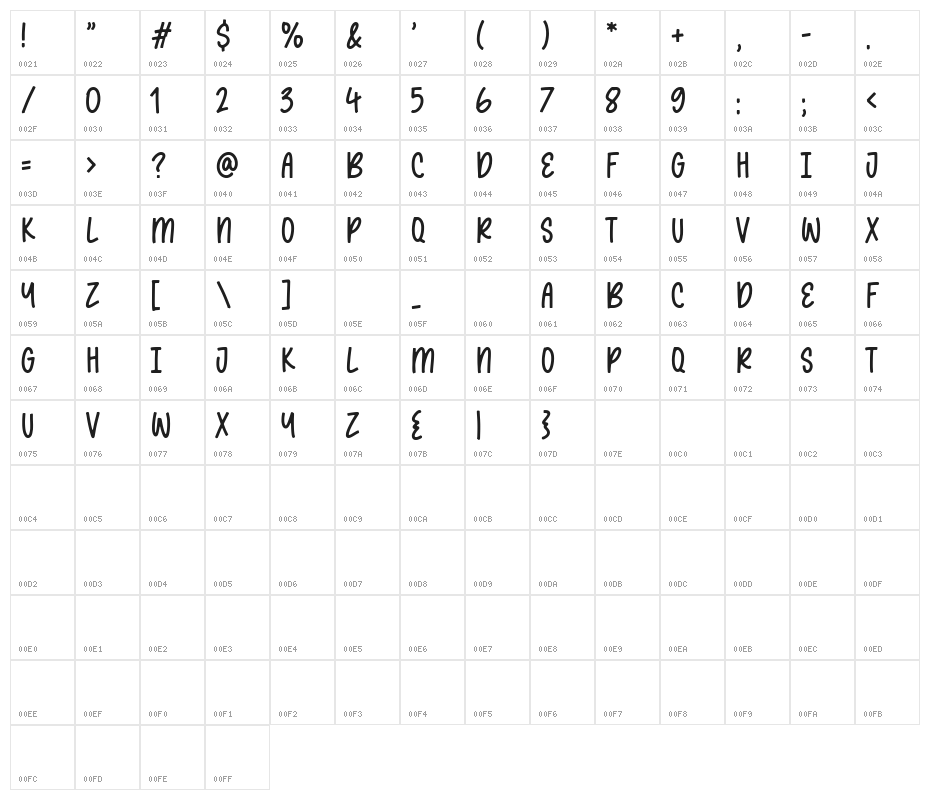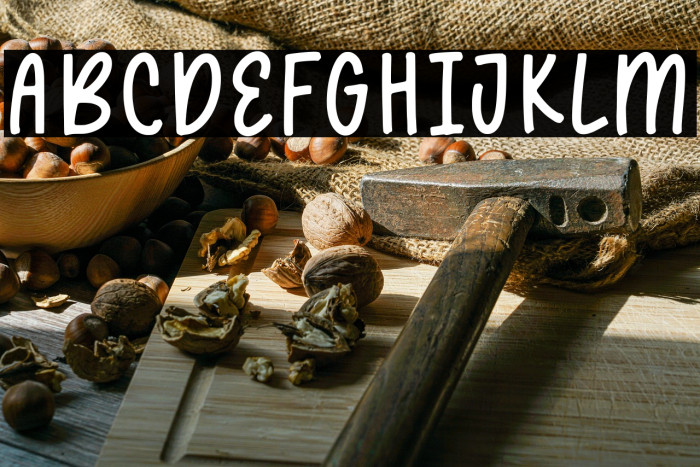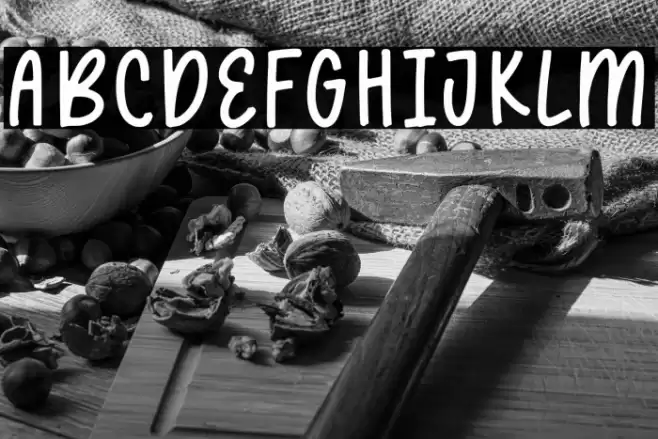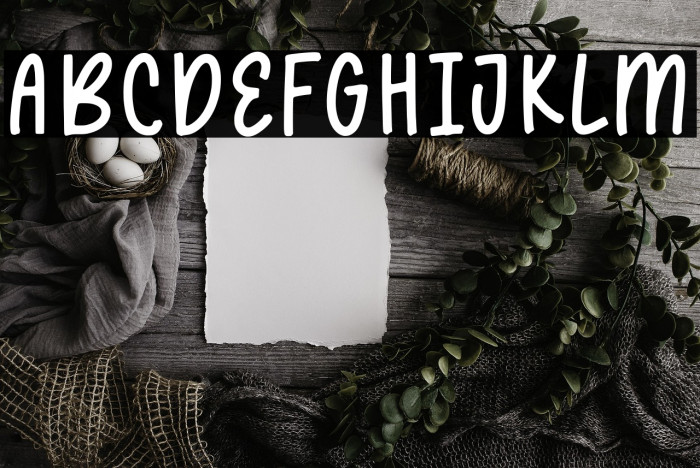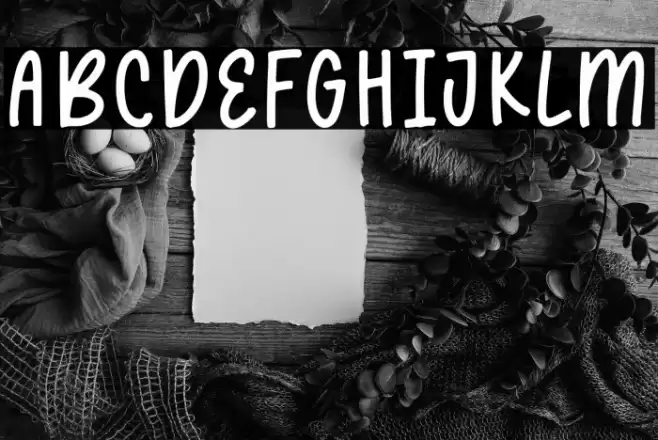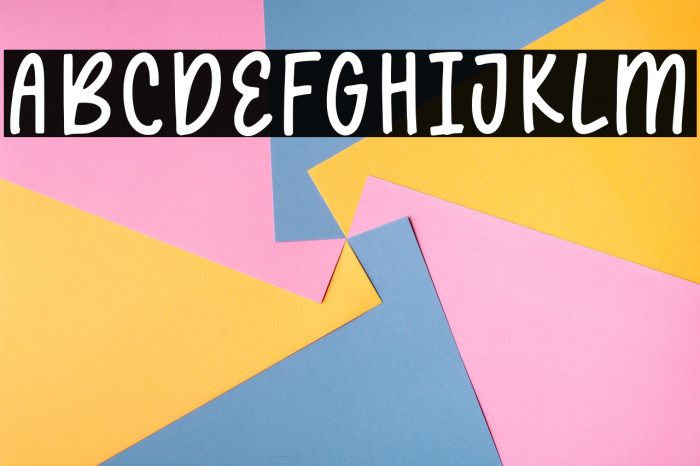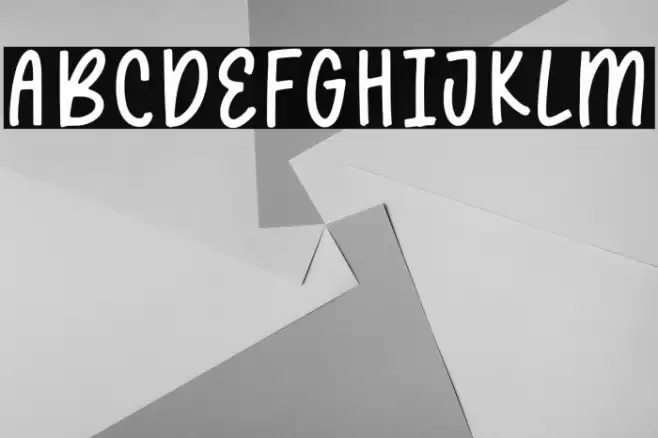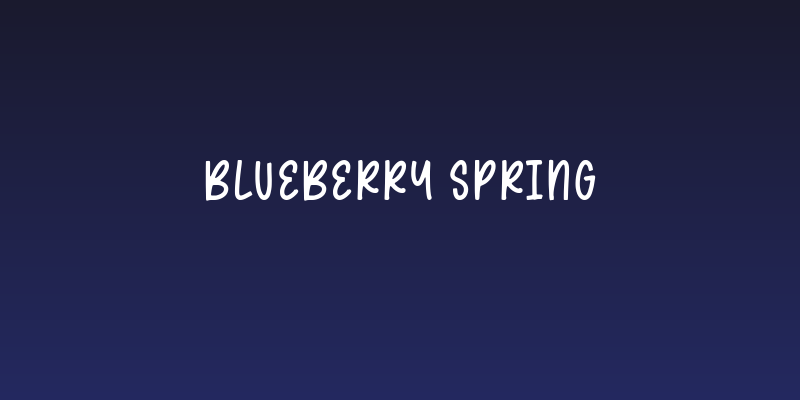
blueberry spring Font
blueberry spring Description
This font features a playful and casual handwritten style, characterized by its smooth and rounded letterforms. The strokes are consistent in thickness, giving it a uniform appearance that is both approachable and friendly. The letters have a slight slant, adding to the informal and relaxed feel. The spacing between characters is balanced, ensuring readability while maintaining the font's whimsical nature. This style is versatile, suitable for a variety of creative projects where a personal touch is desired.
| Proposed Projects | Ideal for greeting cards, children's books, playful branding, and social media graphics. |